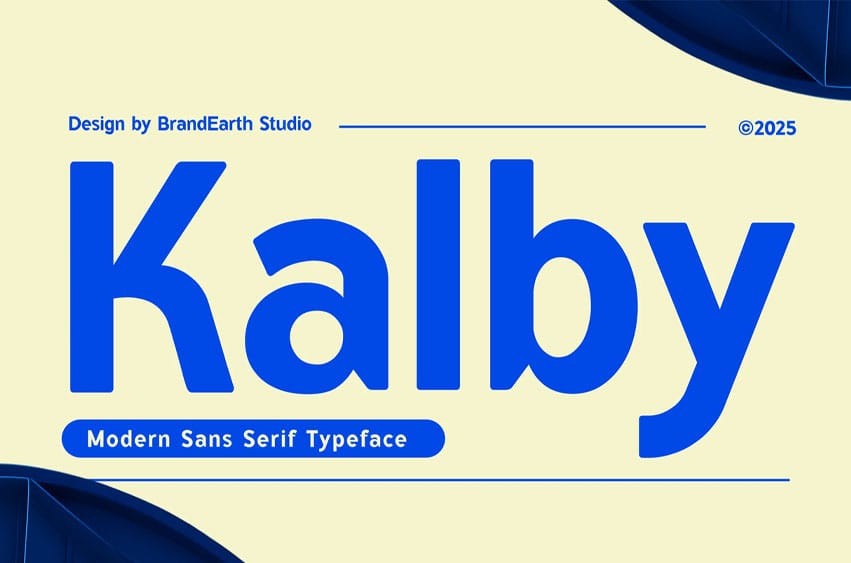
Kalby Font brings a clean, confident modernity to any design. Its friendly yet assertive sans-serif style is defined by soft curves, solid structure, and balanced proportions, making it perfect for editorial layouts, startup branding, and creative portfolios. The letterforms are smooth, rounded, and geometrically refined, giving off a fresh and polished feel without compromising personality.
This font is crafted for wide use across industries—whether you’re curating a compelling Instagram carousel, building your brand, or publishing a lifestyle magazine. Kalby shines in headlines, logos, posters, and clean editorial compositions, especially where readability and style must go hand in hand.
Designed with a minimalist approach, Kalby exudes clarity and professionalism, ideal for businesses that value simplicity and elegance.
Suitable For: modern branding, logo, editorial design, creative portfolio, digital media, advertisements, environmental graphics, architectural signage, and packaging.